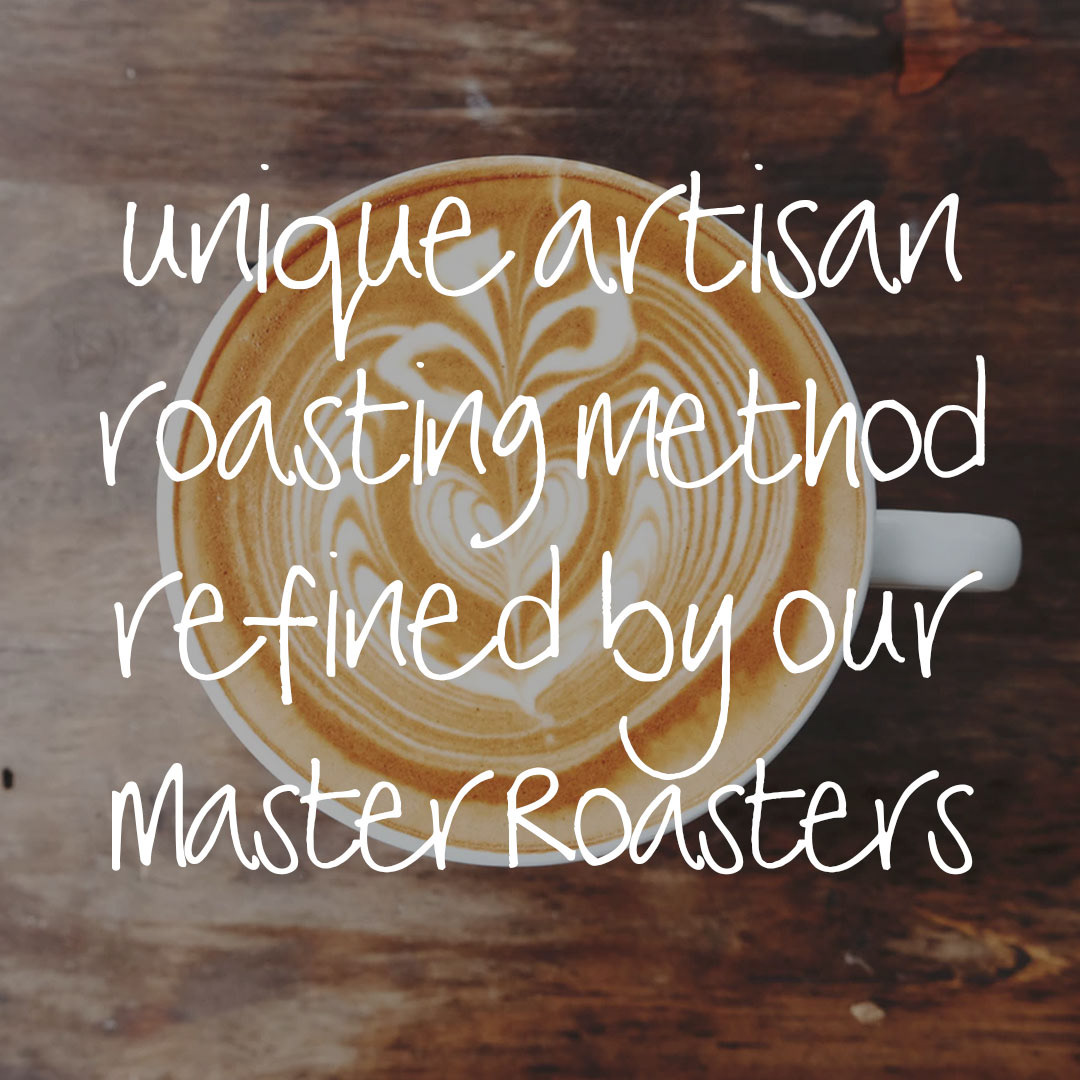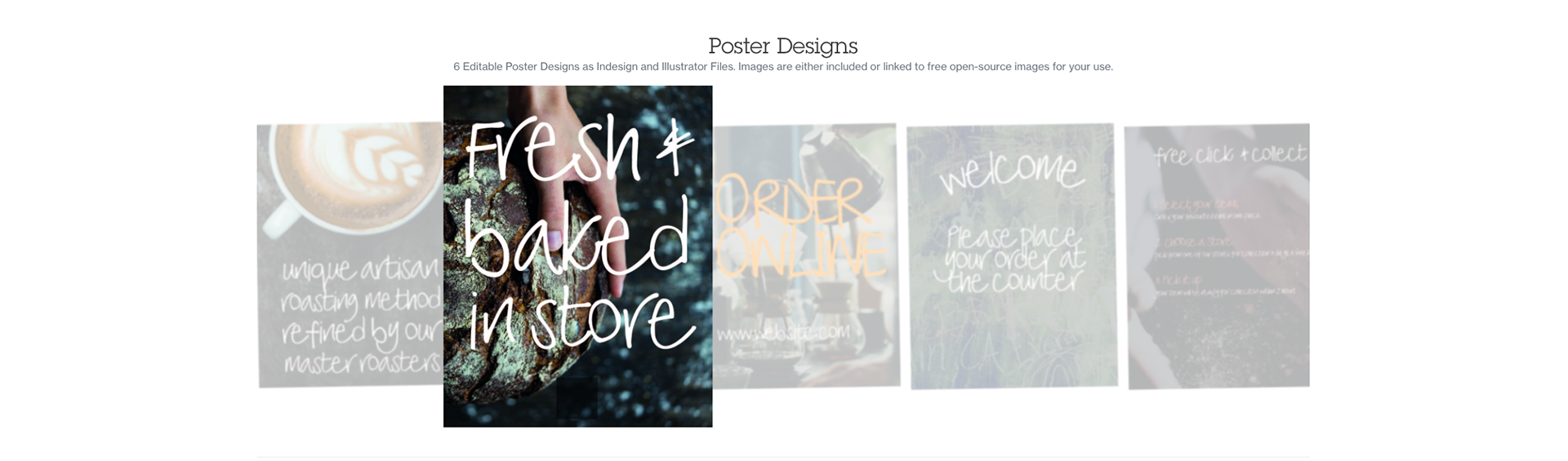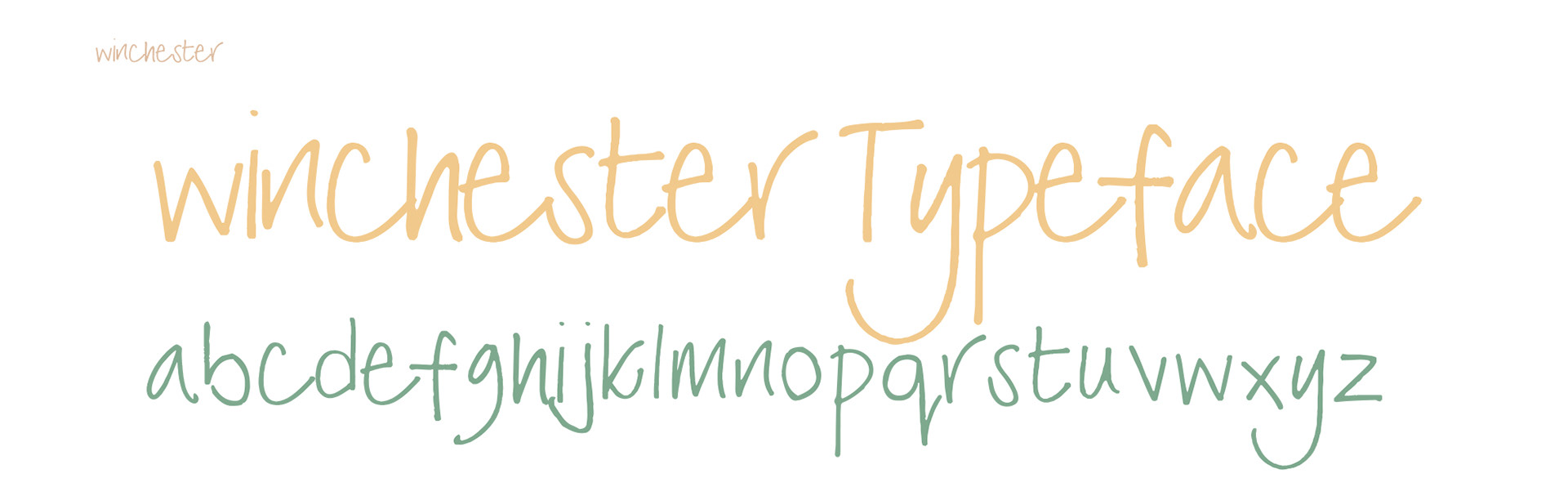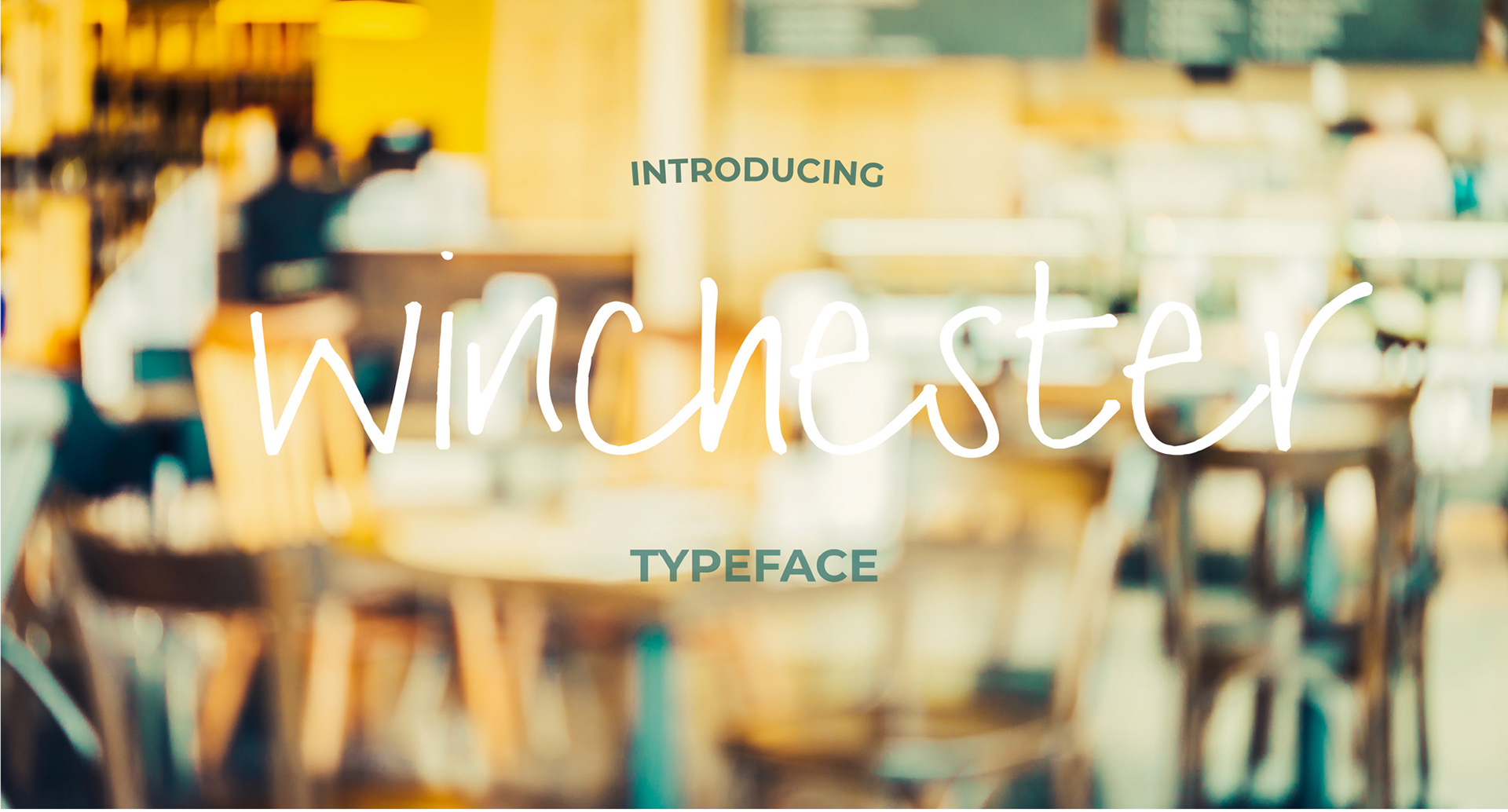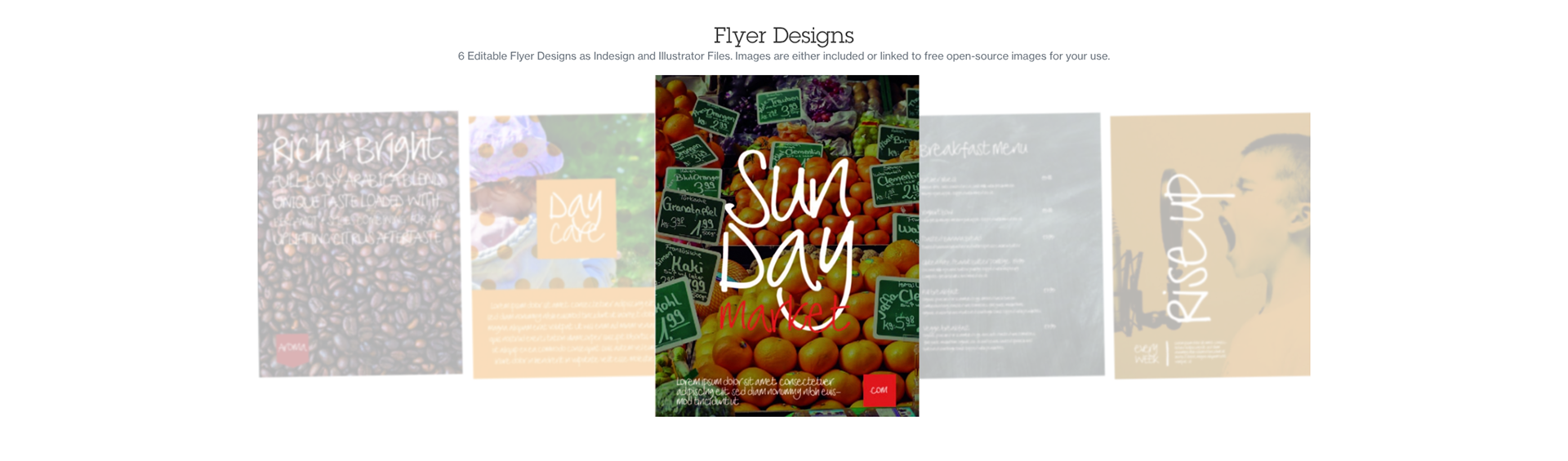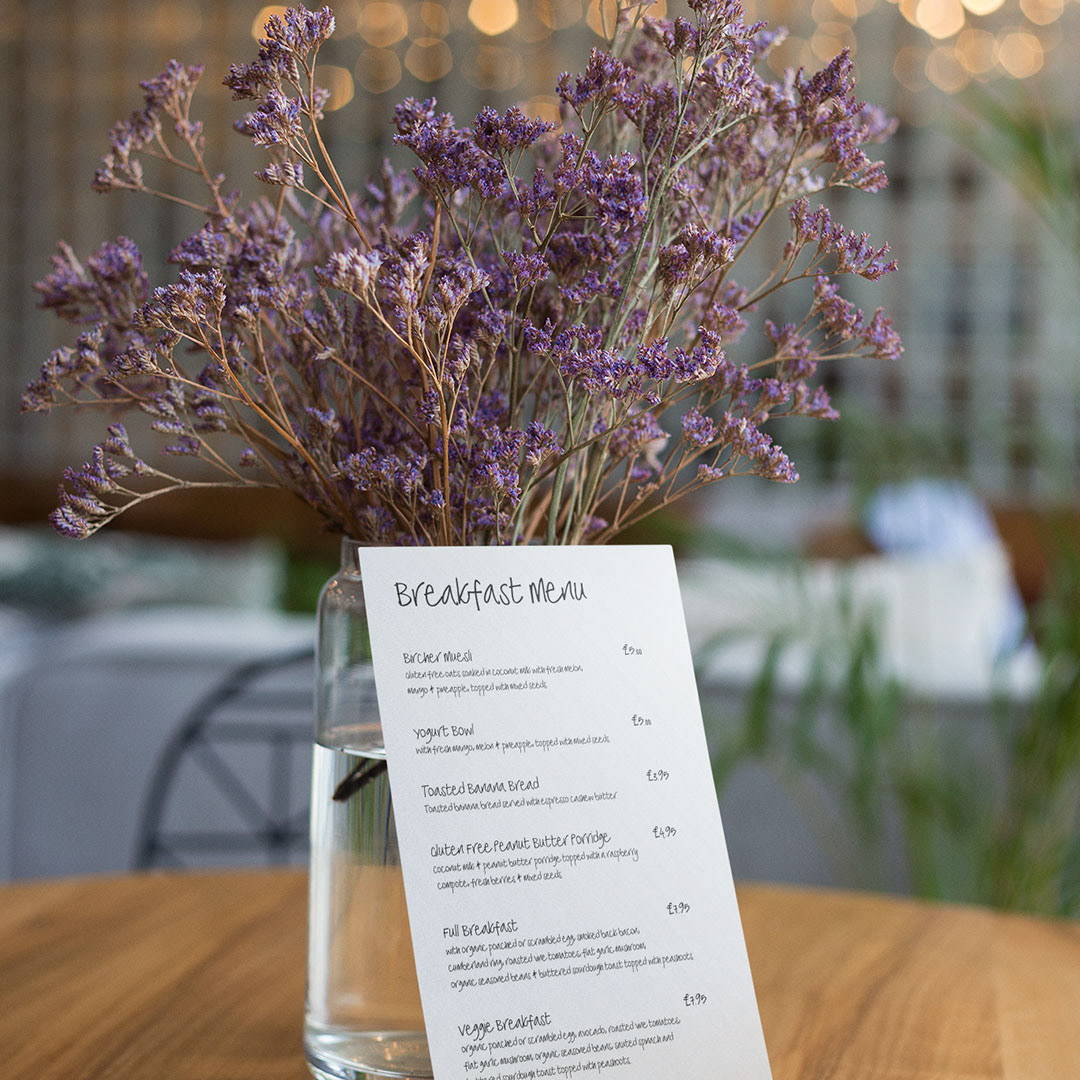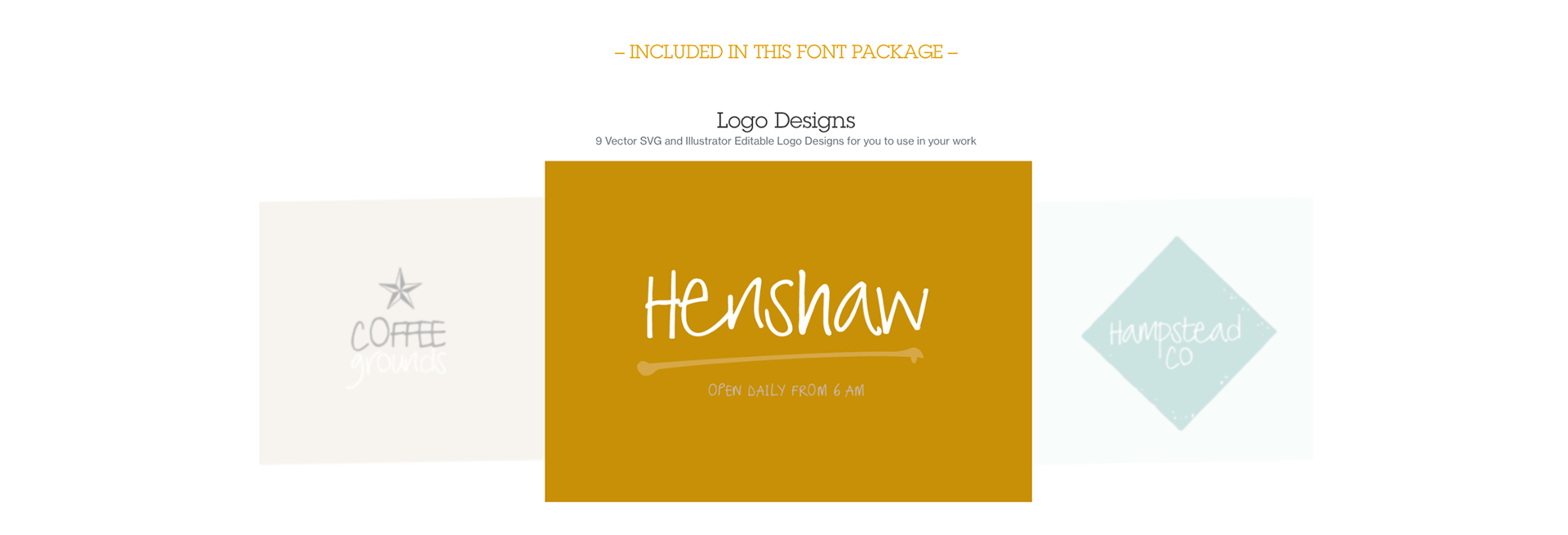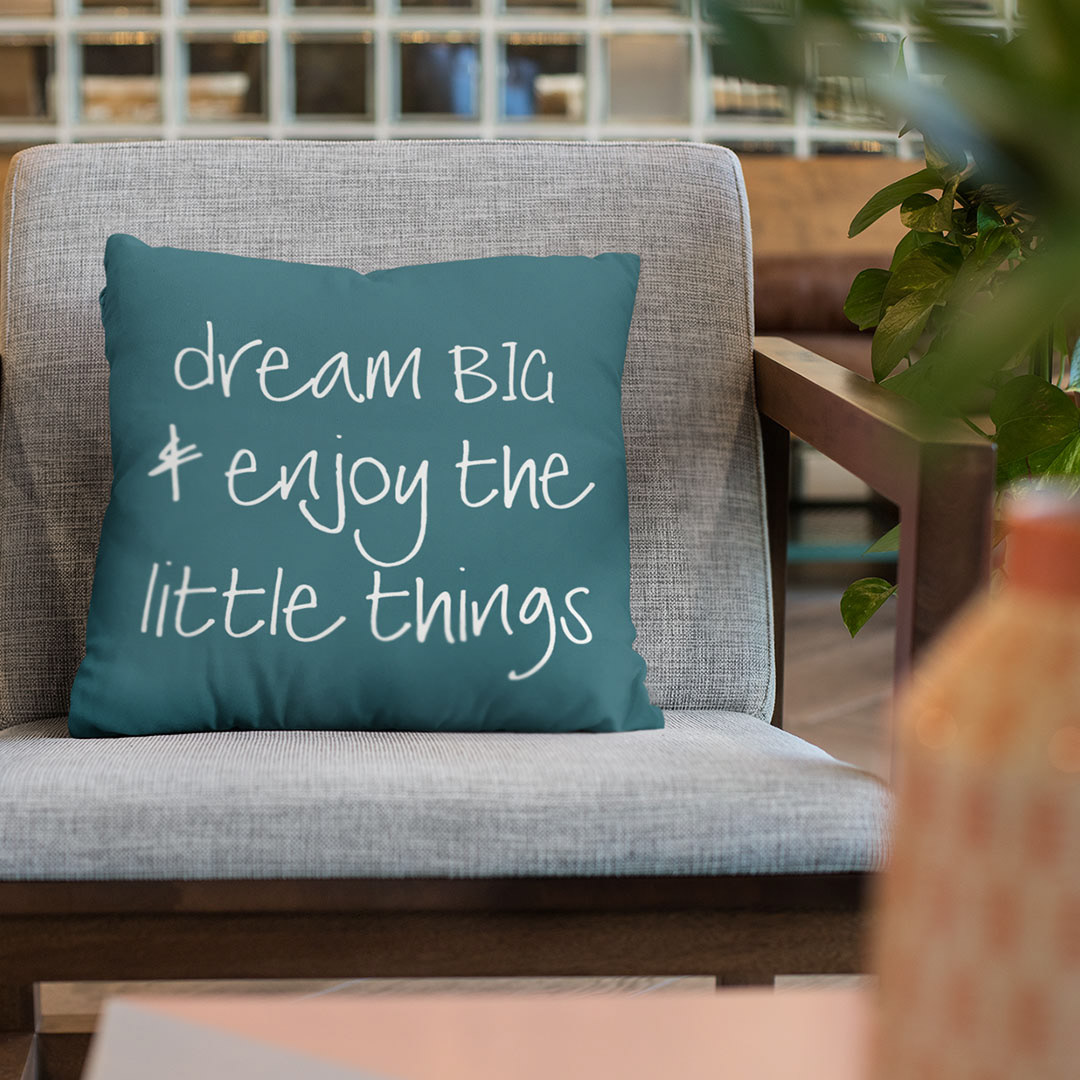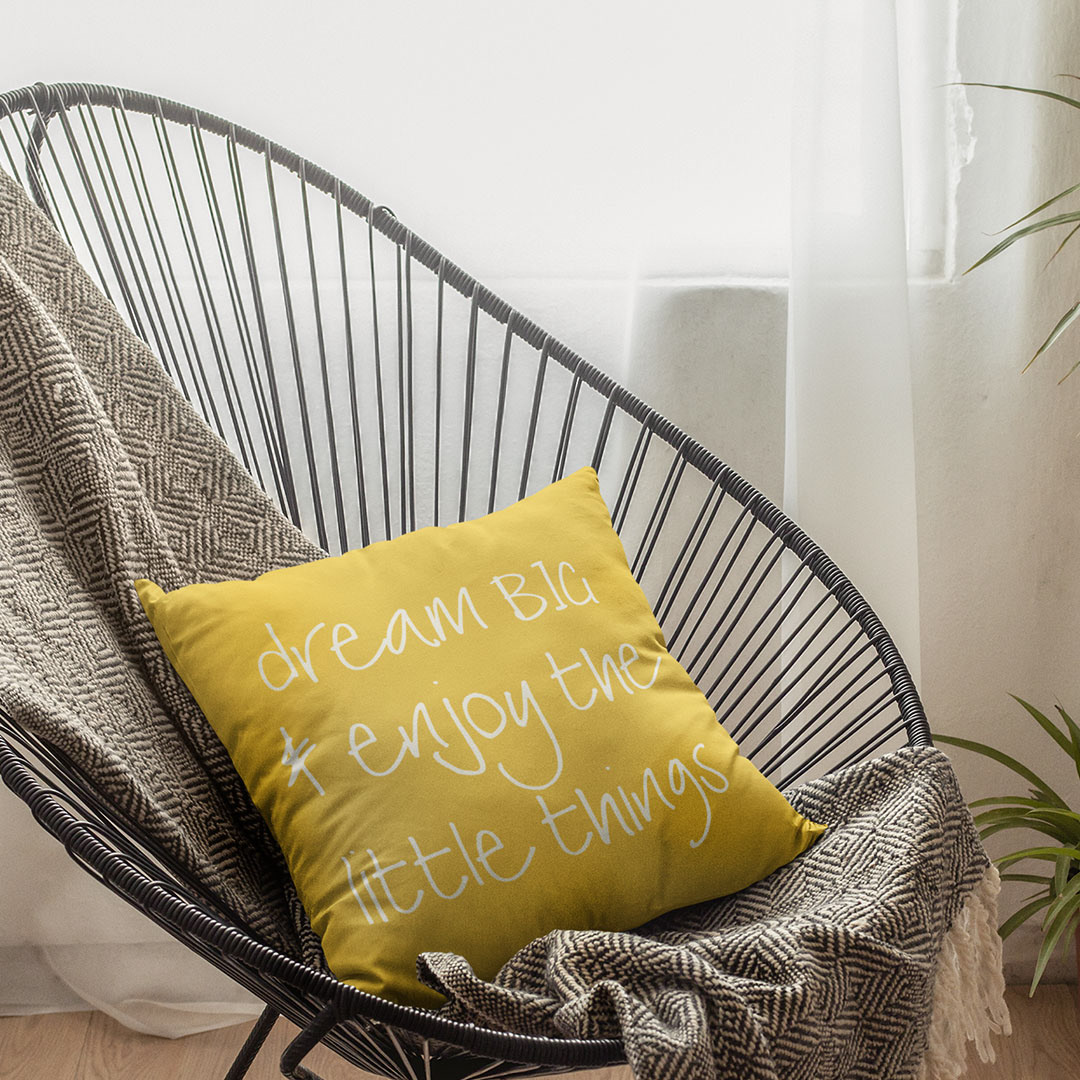
Winchester is a hand drawn fun friendly font born from the handwriting of a mixture of friends. Lovingly honoured in every imperfection, the simple rounded font offers itself to easy use in marketing, friendly brands, advertising and great for a personal touch. Used by Cafe’s, Restaurants, Coffee shops, and also on websites and by those in the creative industry.
Great for use as headings, banners, labels and for a bold statement. Classic and rough in style easy to use with many OpenType alternates.
The Winchester font, with all its imperfections, OpenType alternates, hand drawn shapes sketchy alternates to give your design a handmade feel! Included in this pack is a range of editable designed templates using the font, including: